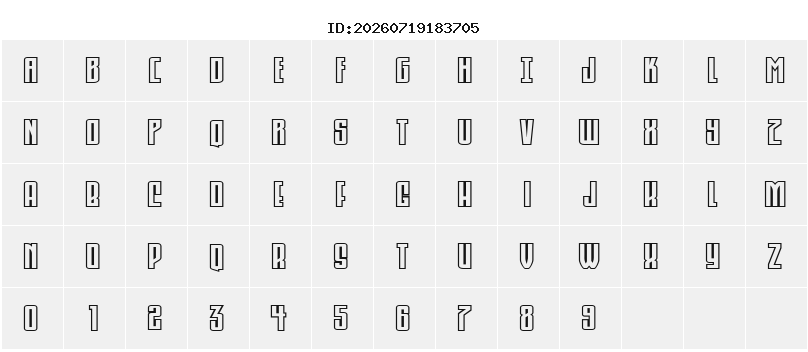
• Font Name: CCPhasesOnStun
• Full Font Name: CCPhasesOnStun
• PostScript Name: CCPhasesOnStun
About CCPhasesOnStun.ttf
CCPhasesOnStun.ttf is a modern, elegant sans-serif font designed for ultimate readability and visual harmony. Perfect for branding, headlines, web design, and print materials.